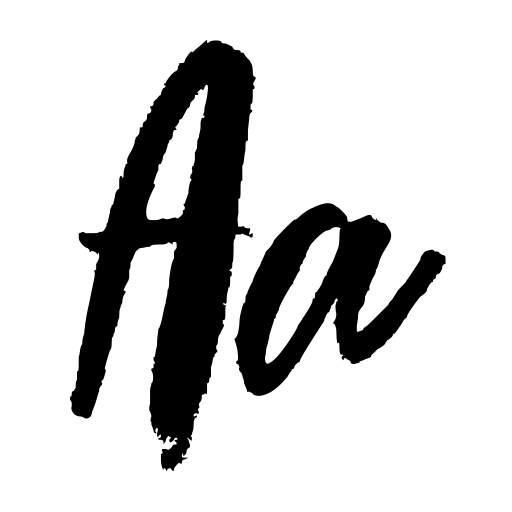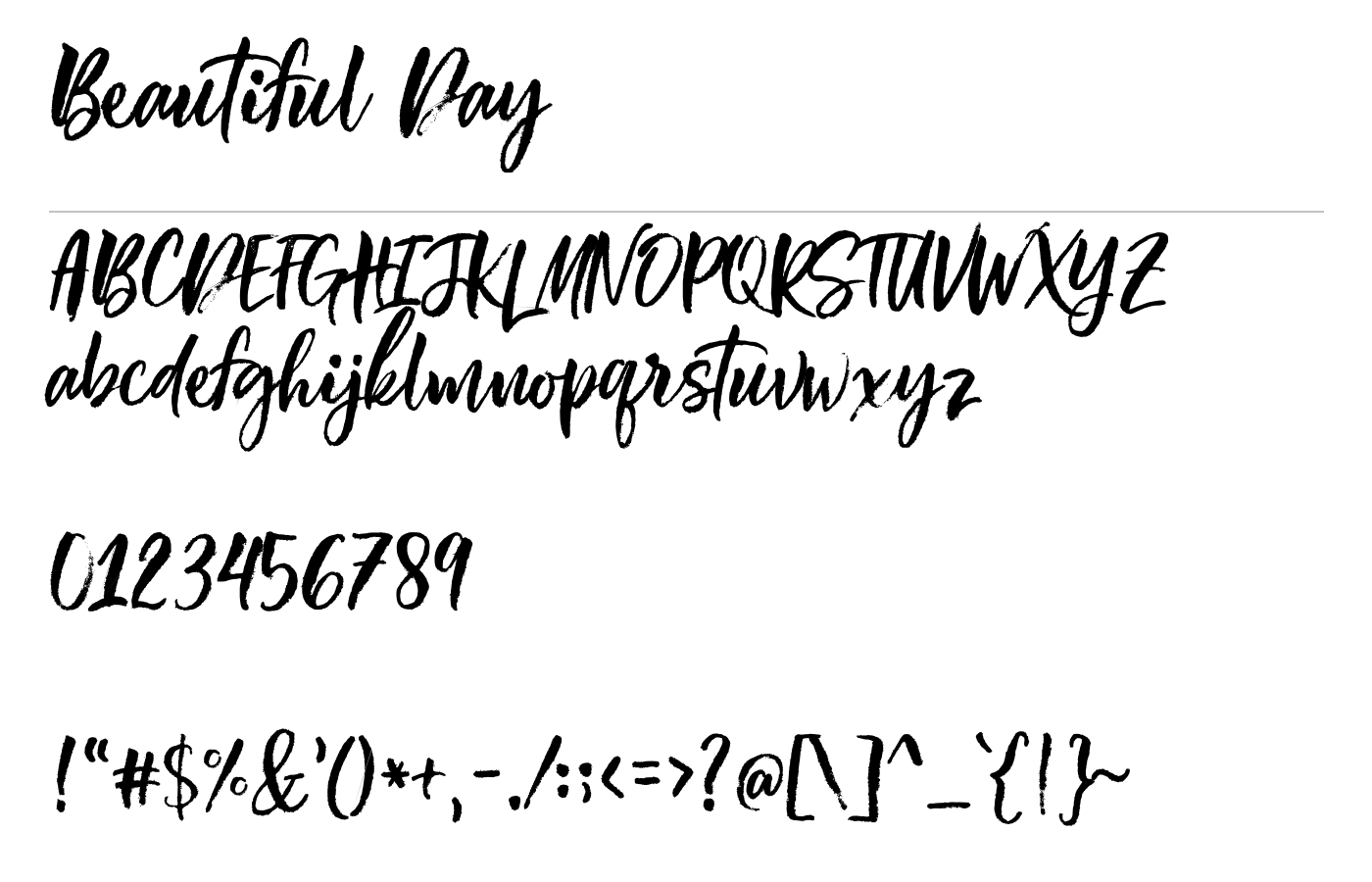
Beautiful Day is a lively handwritten script font with a bold, textured brush style that conveys a casual yet artistic vibe. Its tall, slightly condensed letters with dynamic stroke contrast create a sense of energy and personality, making it ideal for creative branding, posters, and expressive headlines where a personal, handcrafted feel is desired. This font works well for designs that want to appear approachable, stylish, and full of character.
Beautiful Day Font
About Beautiful Day Font
| Font family | Beautiful Day Font |
| Designer | Francis John S. Villo |